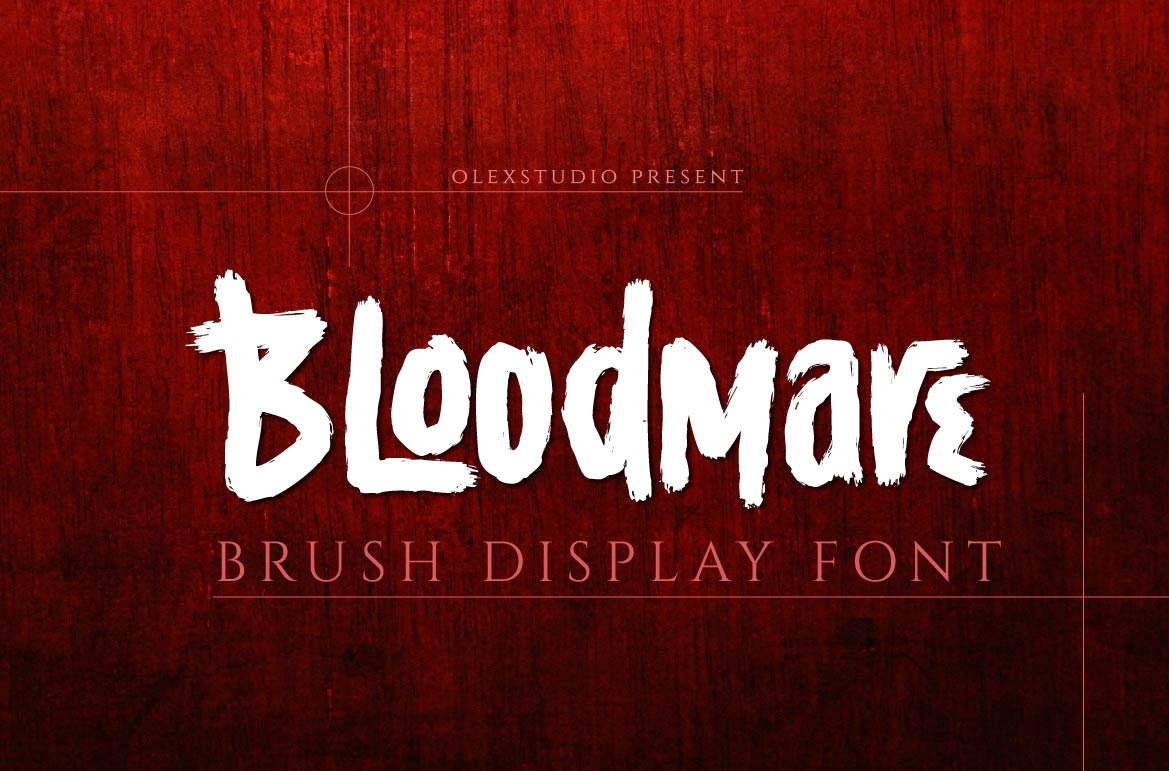
Bloodmare - display font
BLOODMARE - display font will look gorgeous on all your designs, invitation, poster design, book design, branding materials, logo's, and all project design other.